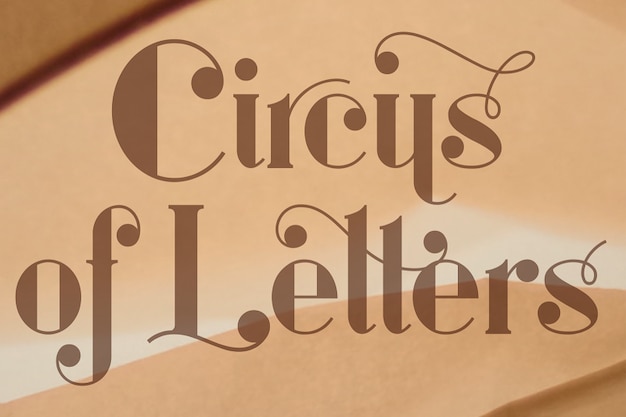
Circus of Letters Font
Circus of Letters is a decorative font bursting with playful swashes and ornate details, perfect for eye-catching, festive designs. Its lively characters evoke the charm and extravagance of a vintage circus, adding a touch of whimsical flair to any project. Ideal for posters, signage, and invitations, Circus of Letters brings joy and energy through its intricate decoration.